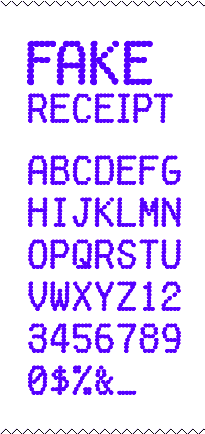
Great for making gag receipts. For entertainment use only. Do not use this font for fraudulent purposes. If you do end up making money with it be sure to send me a donation.